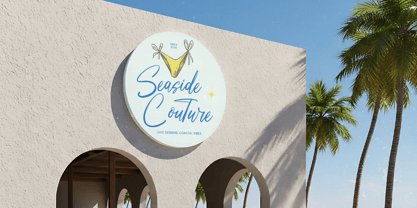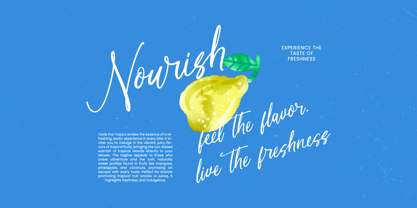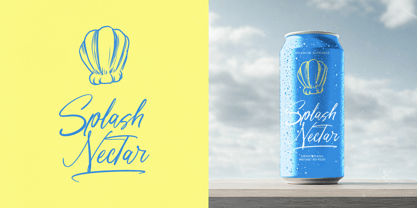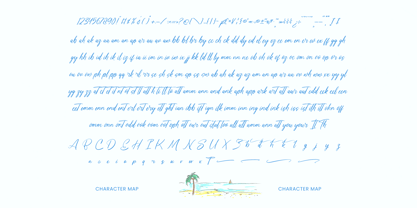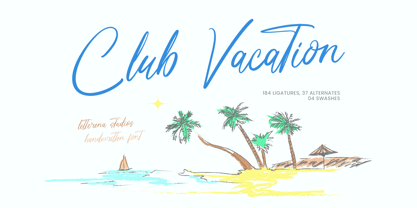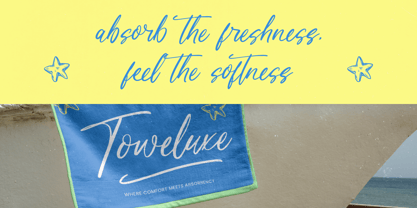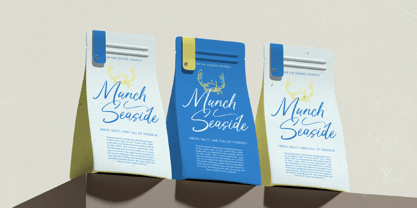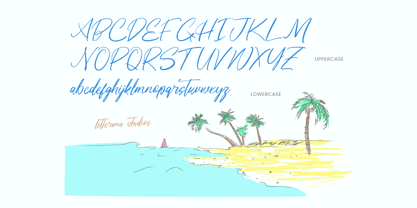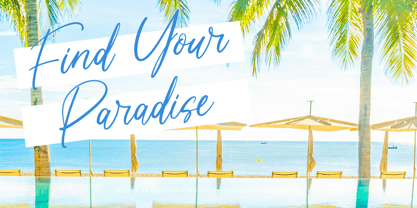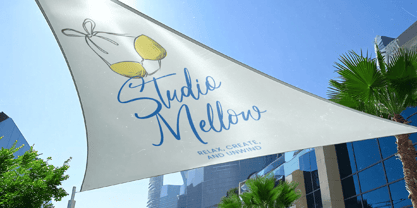
Club Vacation
by Letterena Studios
The Club Vacation Font Family was designed by Heru Utama Putra and published by Letterena Studios. Club Vacation contains 2 styles and family package options. More about this family
Club Vacation – Handwritten Font Club Vacation is an elegant, handwritten font designed to bring a sense of playful luxury to any design project. With 184 ligatures, 37 alternates, and 4 swashes, this font offers plenty of versatility and character. Its smooth curves and flowing lines make it perfect for creating stylish and warm visuals, whether for branding, invitations, social media graphics, or lifestyle content. This font captures the feeling of relaxation and adventure, making it ideal for summer campaigns, beach-themed designs, and anything that evokes a sense of freedom and escape.